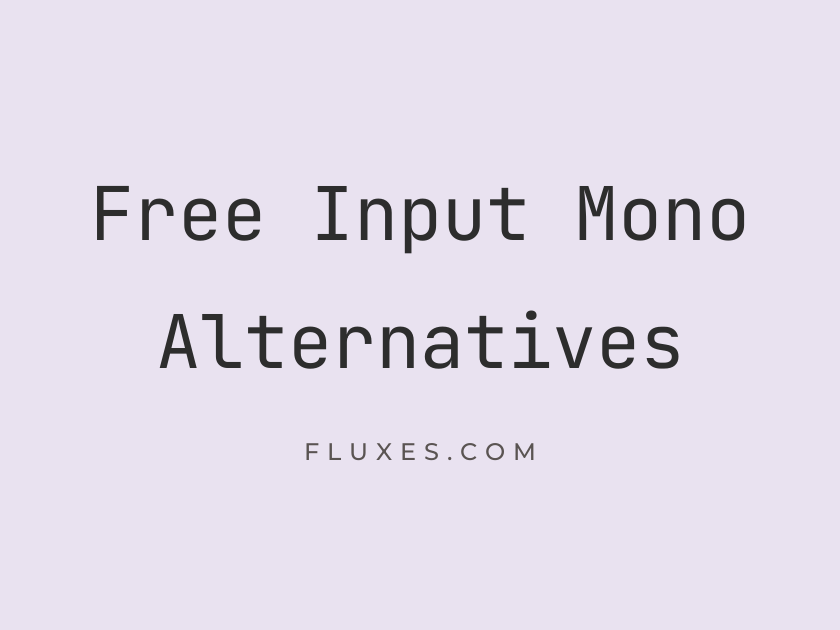
15 Best Free Fonts Alternatives to Input Mono
Input Mono earned its following among developers and technical writers for a simple reason: it treats code the way a good serif treats prose, with real attention to rhythm, spacing, and legibility at small sizes. It is not free, though, and licensing a full family for a team or a client project adds up fast. The good news is that the monospace category on Google Fonts has matured considerably, and several families now offer the same engineered, screen-first clarity without the invoice.
1. JetBrains Mono
Built by a company that makes IDEs for a living, this face was engineered specifically to reduce eye strain during long coding sessions. Letters are slightly taller than average and the punctuation is unusually distinct, so brackets, semicolons, and dashes never blur together on a crowded line. It has become something of a default choice for developer portfolios and technical blogs, and for good reason.
2. IBM Plex Mono
Part of IBM’s sprawling Plex superfamily, this monospace sibling carries the same restrained, corporate-but-human personality as its sans and serif relatives. It pairs naturally with Plex Sans or Plex Serif for documentation sites that need a unified type system across headings, body copy, and code blocks. The lowercase letterforms have a faint typewriter echo without ever feeling nostalgic.
3. Source Code Pro
Adobe’s answer to the coding-font brief is dependable rather than flashy. It sits comfortably in editors, terminals, and printed documentation alike, and its wide weight range makes it flexible enough for both body text and emphasis in technical writing.
4. Roboto Mono
As the monospace companion to Android’s system font, this one carries a geometric, slightly condensed feel that reads as modern and unfussy. It is a safe, versatile pick when a project already leans on Roboto elsewhere and needs a matching code face rather than a contrasting one.
5. Fira Code
Originally built to support programming ligatures, this face has a loyal following among developers who like their arrows and comparison operators to render as single connected glyphs in supporting editors. Even without ligature rendering in a browser, the underlying letterforms are open and generous, with a taller x-height that holds up well in dense code blocks.
6. Inconsolata
A classic monospace for editorial code samples
One of the earliest monospace fonts designed expressly for screen use rather than adapted from a typewriter face, it has an elegance that many later coding fonts still chase. The lighter weights in particular look refined in technical tutorials and printed documentation. It can feel a touch delicate at very small sizes, so pair it with a slightly larger base font size in code blocks.
7. Ubuntu Mono
Distinctive rounded terminals and a warmer character set the Ubuntu family apart from more clinical coding fonts, and the mono cut carries that same friendly attitude into the terminal. It suits developer tools, open-source project pages, and anywhere a brand wants code to feel approachable rather than austere.
8. PT Mono
Robust letterforms built for long reading sessions
Developed by the Russian foundry ParaType, this face has a sturdiness to its strokes that holds up remarkably well in dense blocks of text. It is less commonly seen than some of its peers, which makes it a good option for a project that wants a coding aesthetic without looking identical to everyone else’s GitHub README.
9. Cousine
Metric-compatible with Courier, built for screens
Designed as a metric-compatible alternative to Courier New, this one is useful whenever a layout needs to swap in a free font without reflowing existing text. It reads as slightly more contemporary than true Courier while keeping the same familiar, typewriter-adjacent proportions.
10. Overpass Mono
Highway-inspired proportions for technical interfaces
The Overpass family draws on the lettering of US highway signage, and the mono cut inherits that same confident, slightly industrial character. It works well in dashboards, developer tool interfaces, and anywhere data needs to feel authoritative rather than delicate.
11. Spline Sans Mono
Clean geometry for modern code editors
A newer addition to the category, this face has crisp, even strokes and a contemporary geometric structure that feels closer to a UI font than a legacy coding face. It suits product documentation, developer dashboards, and technical marketing pages that want a current, well-designed look rather than a retro terminal feel.
Always test a candidate at your actual code-block font size before committing; some of the lighter-weight options thin out noticeably below 14px.
None of these fonts try to be a pixel-perfect clone of Input Mono, but each one solves the same underlying problem: making technical text legible, distinct, and pleasant to read for hours at a time. With a Google Fonts account and a few minutes of testing in your own editor or documentation site, it is easy to land on a free monospace family that fits your project just as well.